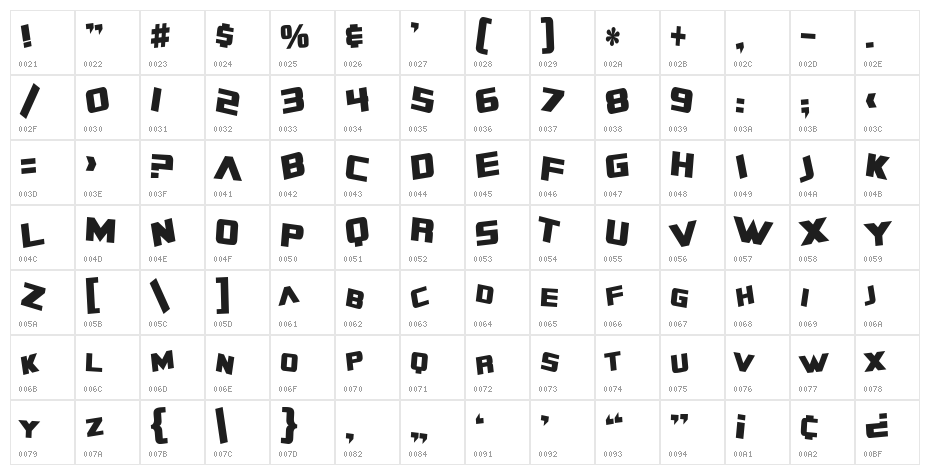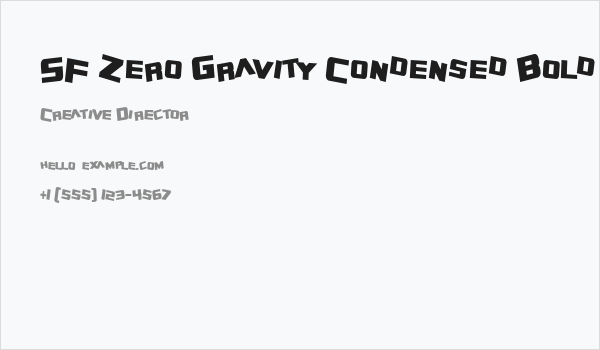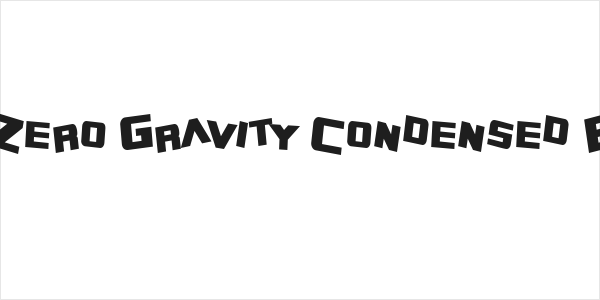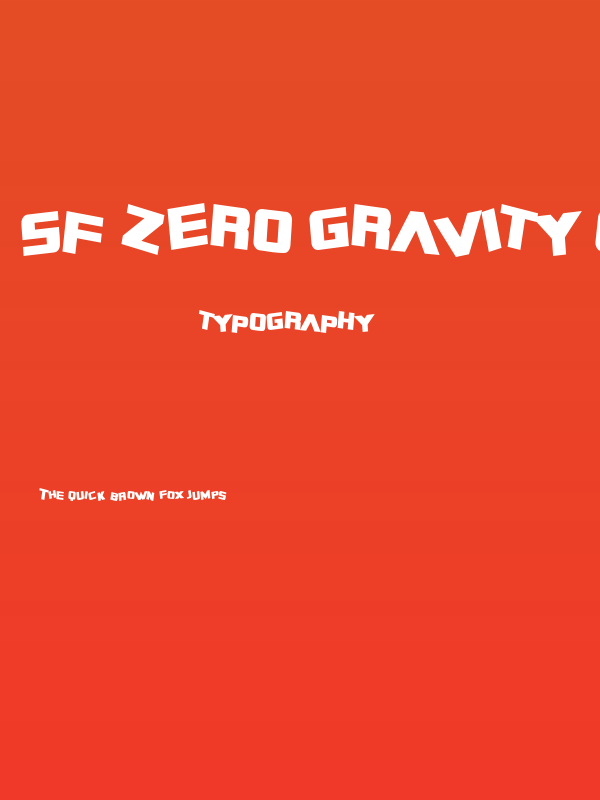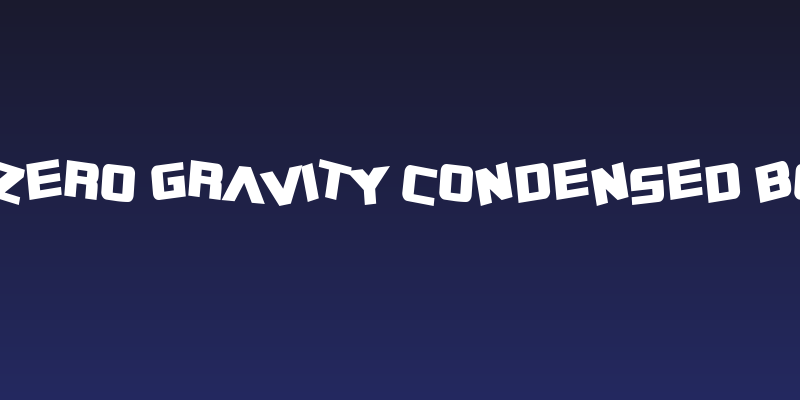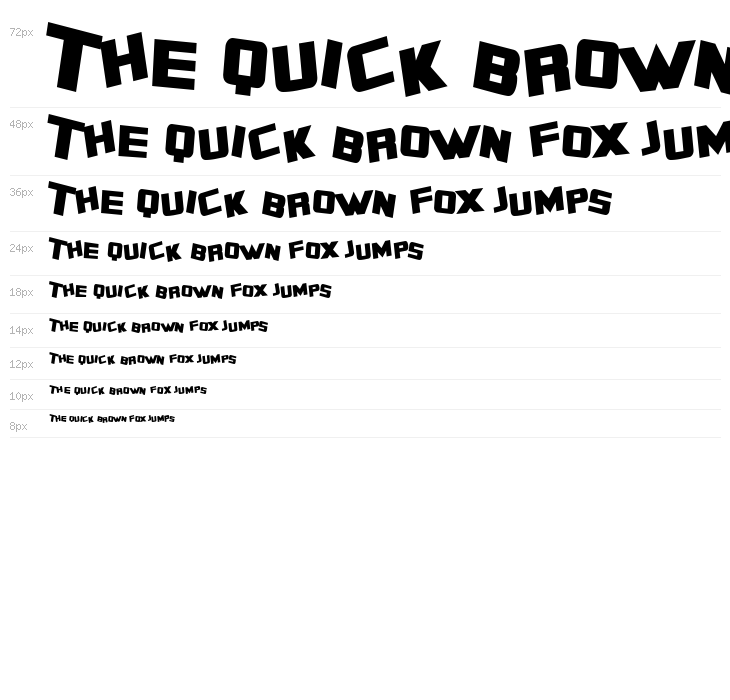
SF Zero Gravity Condensed Bold Font
SF Zero Gravity Condensed Bold Description
This font features a bold and condensed style with a modern, futuristic appearance. The characters are distinctly angular with sharp edges, giving them a dynamic and energetic feel. The uppercase letters are particularly striking, with a slightly slanted orientation that adds to the sense of movement. The numbers and special characters maintain this bold and impactful design, ensuring consistency across all glyphs. The font's strong presence makes it ideal for attention-grabbing headlines and titles.
| Proposed Projects | Ideal for sci-fi themed posters, video game titles, and futuristic branding materials. |